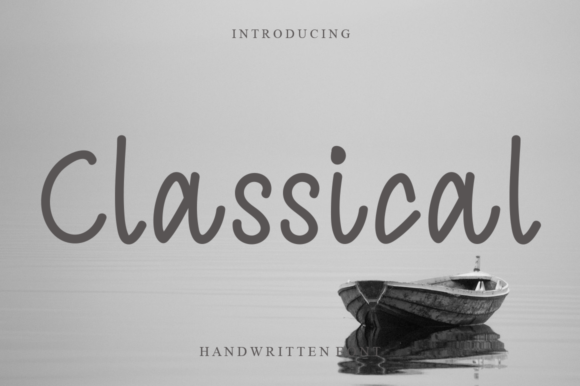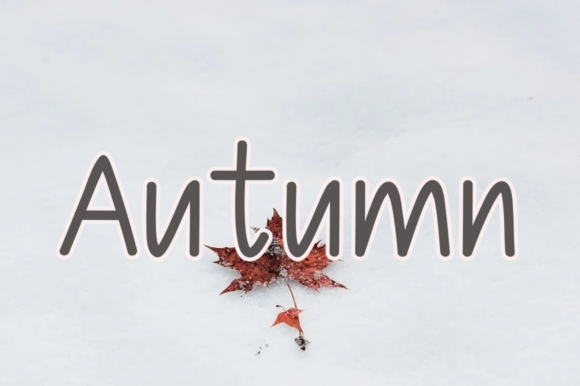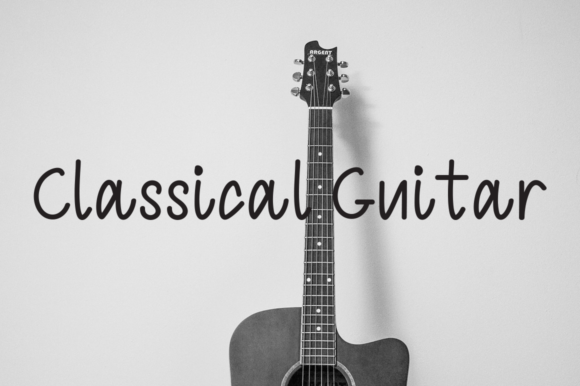
About Classical Font
Classical is a dainty, thin and cursive handwritten font. This gentle font will look gorgeous on a variety of design ideas. It will add a joyful and neat touch to each of your projects!